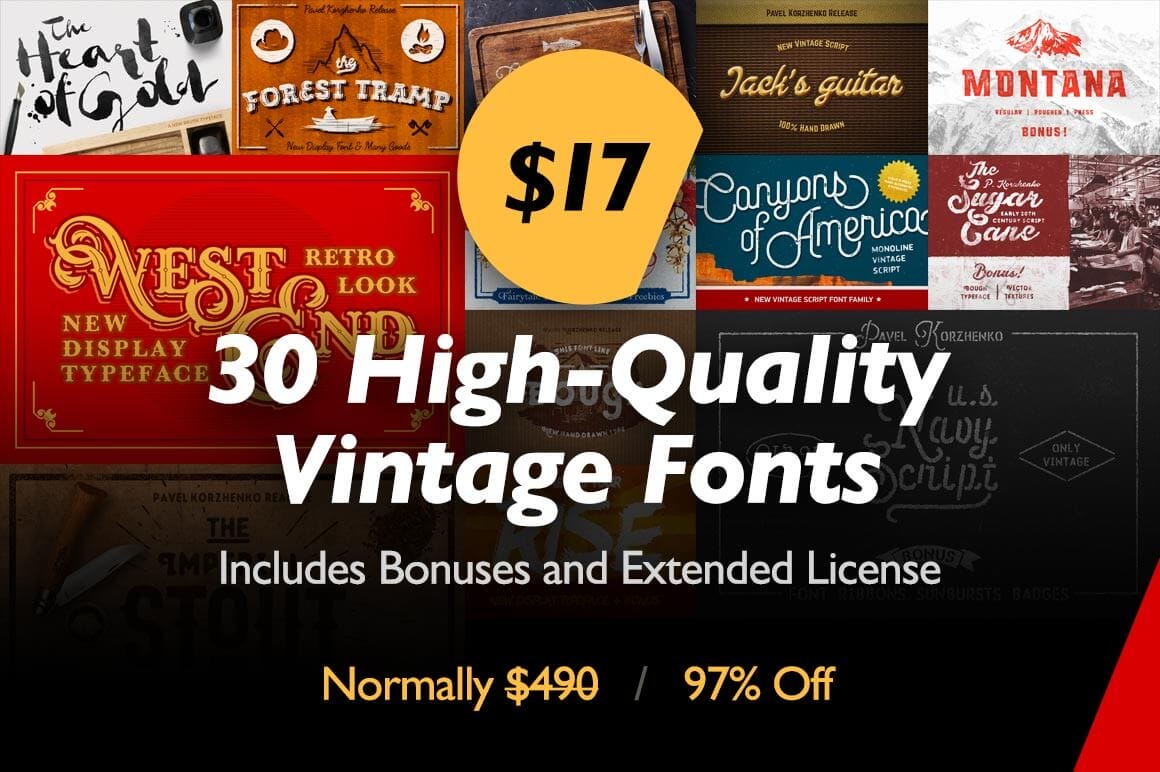
Looking to the past to complete your future projects? Yeah, this incredible Mighty Deal is all about going retro. For one insanely low price (we’re talking 97% off!), you can get yourself 30 fonts in 1 mighty typeface pack. That’s 13 vintage font families, multiple style variations and loads of bonus goodies from textures to vector illustrations. The past never looked so good!
West End
Inspired by early 20th century elegant hand drawn advertising sign and facades decor, West End is a great display font to give a vintage look to whatever project you’re working on from T-shirts to cards to posters.
US Navy
Inspired by the U.S. Navy and WWII hand scripts, the US Navy font includes some wonderful OpenType Features such as stylistic alternates for swashes. Plus, you’ll get a fantastic collection of vintage vector objects including ribbons, sunbursts, badges and more.
Jack’s Guitar
Created by hand using an ink pen for calligraphy, Jack’s Guitar is a cute hand-drawn font that’s great for creating graphics and design in a truly vintage style.
Heart of Gold
Heart of Gold is an impressive modern brush typeface that’s just perfect for titles, logos, branding, packaging and more. Plus, this hand-lettered font with an abstract style also includes a number of alternate ligatures for many double glyphs.
Canyons
With more than 160 glyphs, Canyons is a gentle vintage monoline script with a variety of alternates, as well as 4 unique styles.
Montana
Part of the sans-serif font family, Montana is a wonderfully simple gent type font with some rough and pressed effects. You’ll also get a set of 4 vector mountain peaks.
Sugar Cane
Sugar Cane was inspired by retro graphics from early 20th century shoe and clothing factory logos. Besides grabbing this beautiful vintage script font, you’ll also get a set of 9 vintage noise and halftone textures.
Bough
A vintage font, Bough features 2 styles (regular and condensed), along with alternate glyphs for every character.
STOUT
Perfect for logos, flyer headers, cards, posters and more, STOUT is a wonderful vintage font that comes your way in 2 unique styles. As a bonus, you’ll also get a wonderful set of 50 vector objects including banners, animals, vehicles, sports figures and more.
RISE
Full of energy and passion, RISE is a very detailed brush font that’s a great choice for any project you’re working on: logos, business cards, magazines, packaging, etc. It also includes 8 vector brush painted shapes, and 8 alternate ligatures.
Winter Holidays
Add a true fairytale touch to your latest project with the Winter Holidays font, complete with an extra set of freebie illustrations (wreaths, ribbons, reindeer, and more!).
La Fa Salt
A cursive script with a variety of interesting alternates, ligatures, multi-language support and more, La Fa Salt is a great way to add a vintage or romantic look to your work. Plus, it includes a bonus font of the hand-drawn serif type Robinson.
The Forest Tramp
Based on inspiration from Jack London’s book and Filson Clothes, The Forest Tramp is a hand-drawn display font complete with 6 discretionary ligatures. It’s perfect for everything from business cards to posters to T-shirts. Plus, you’ll get a variety of bonus goodies including hand-drawn vector objects, badges and 5 HQ PNG textures with transparent backgrounds.